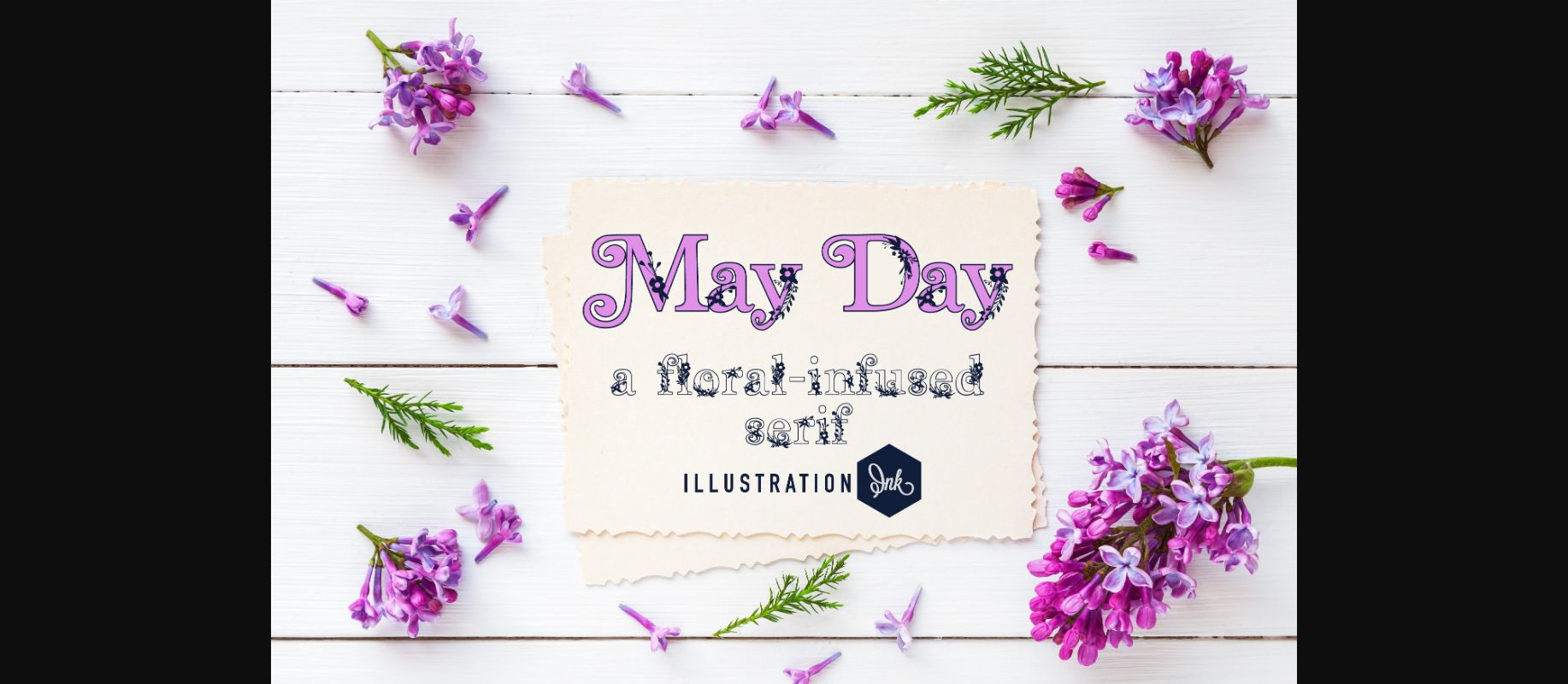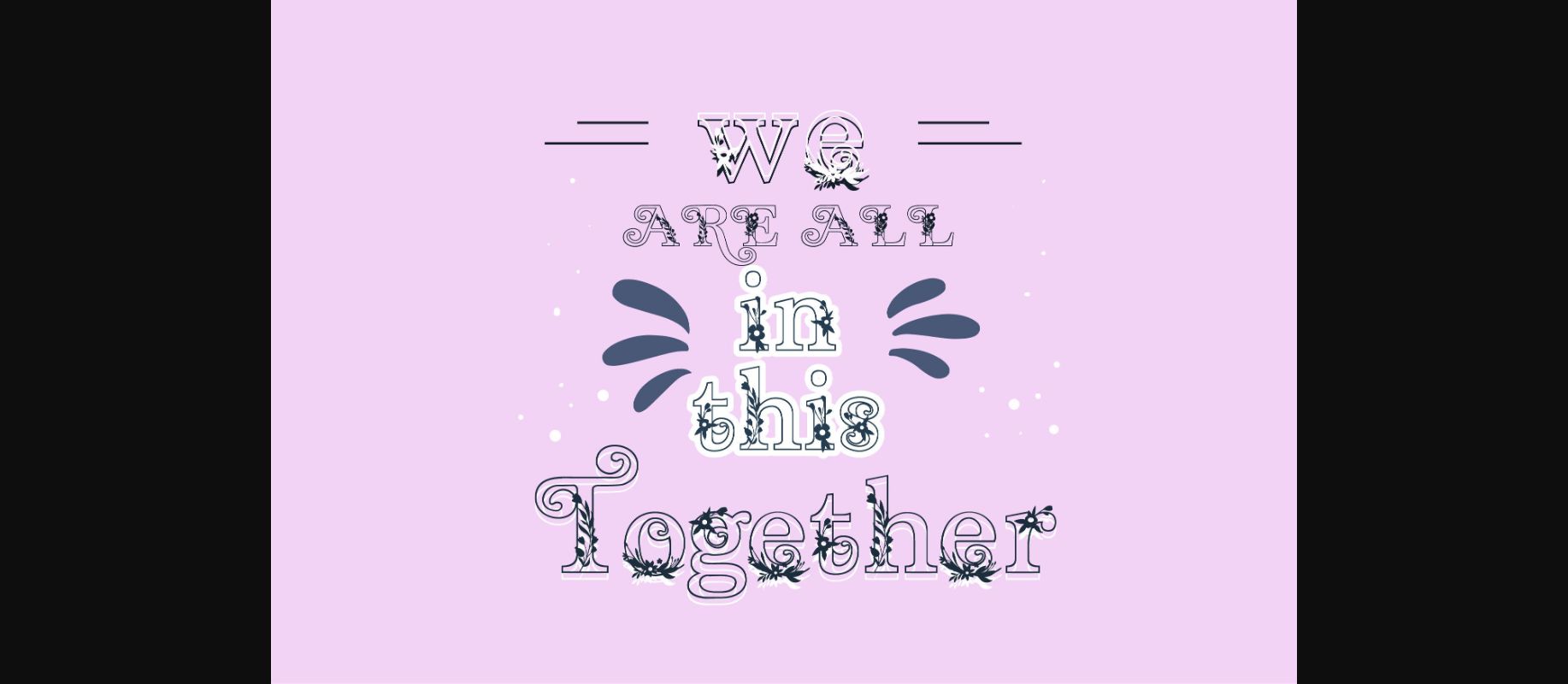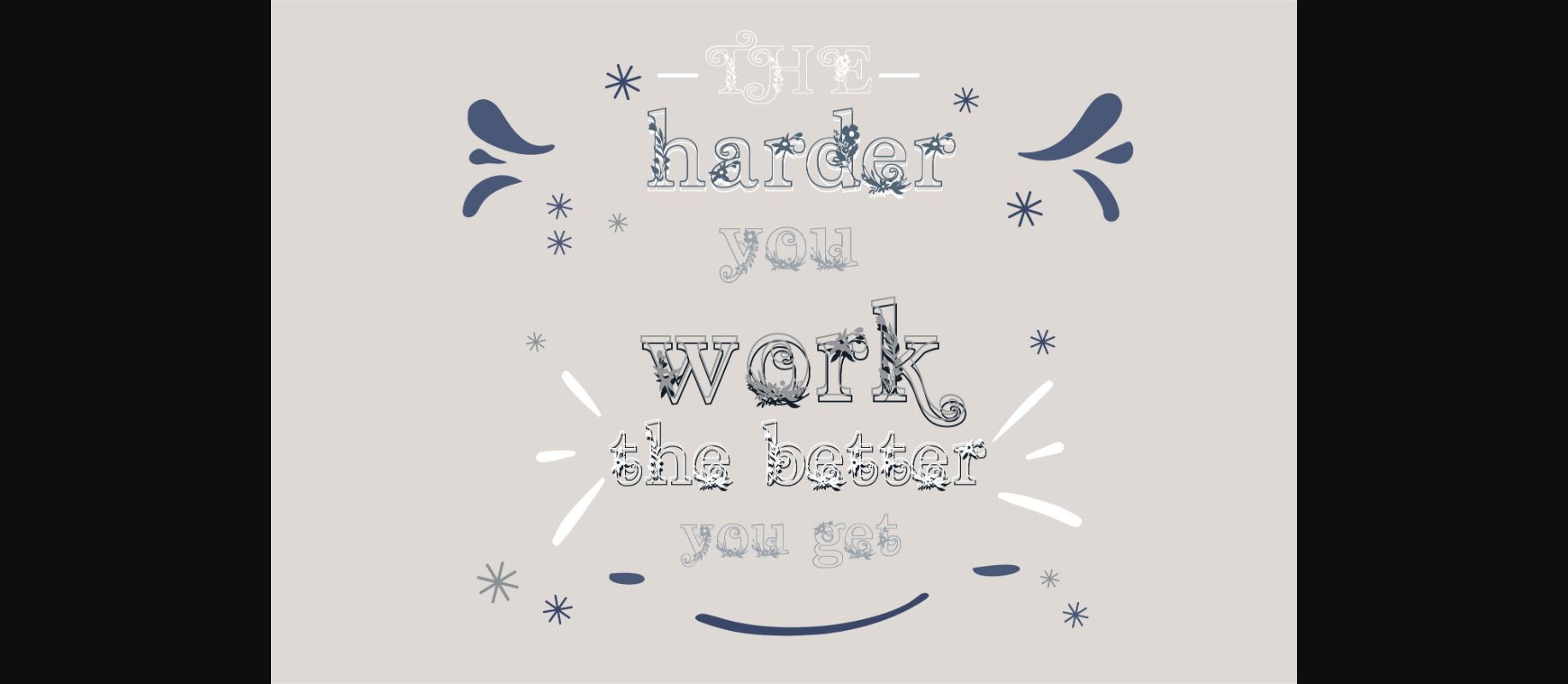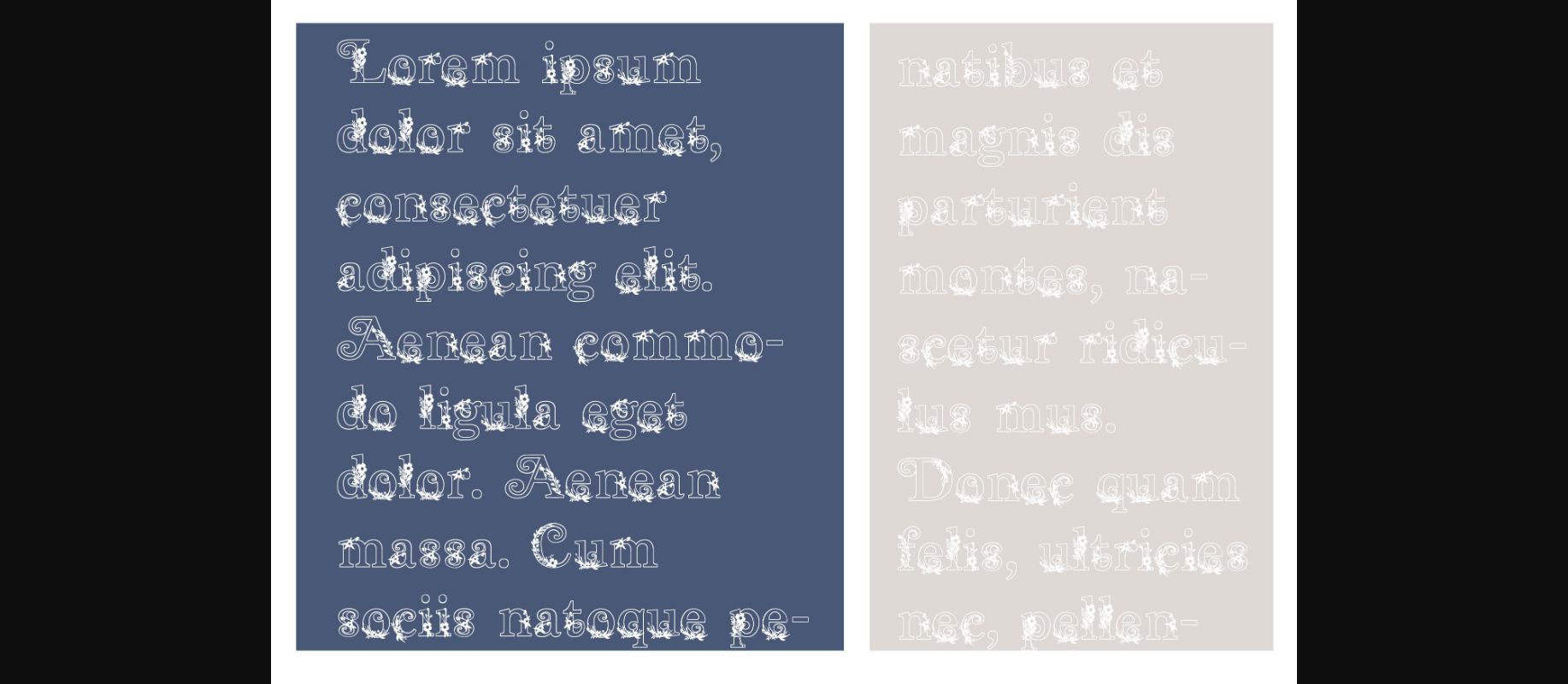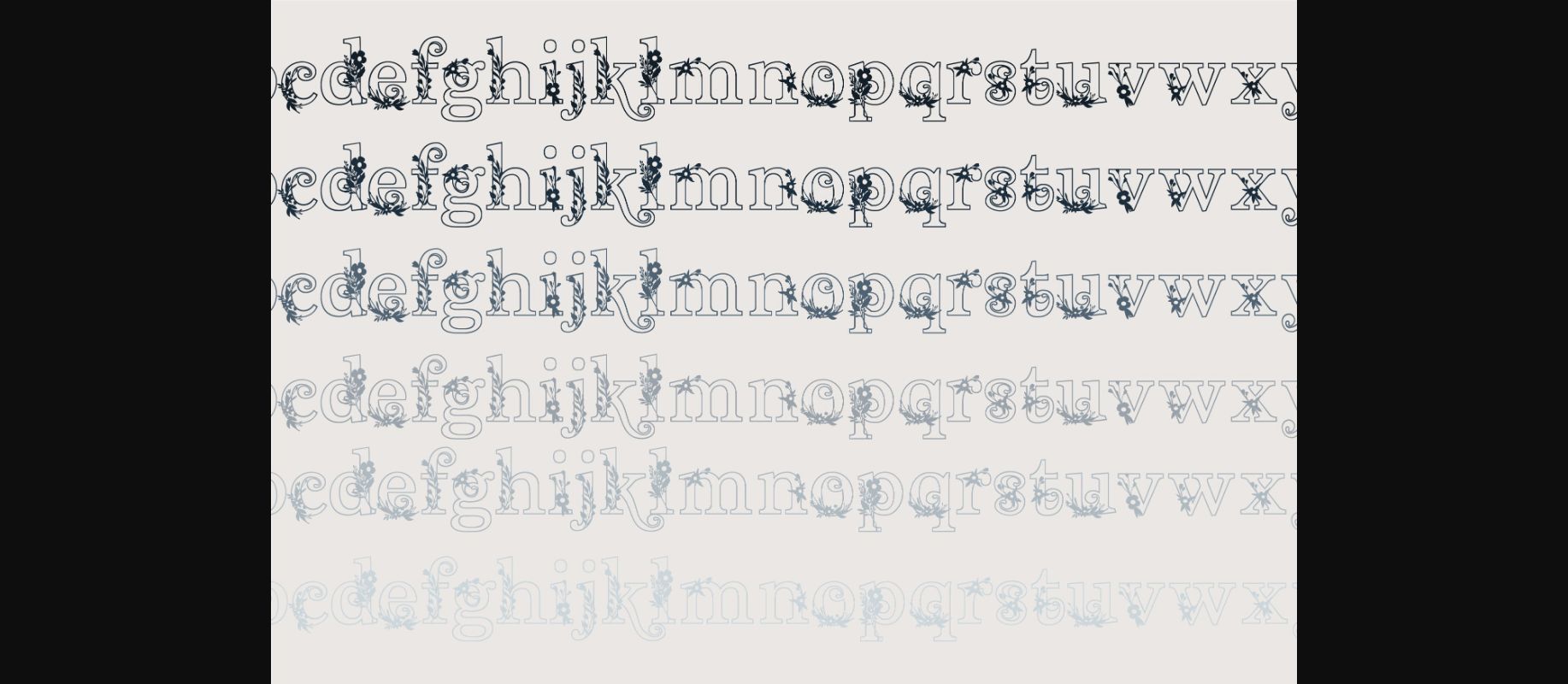
May Day Font
About May Day Font
May Day is a cute and playful decorative display font that sports swirls, curls, and floral sprays. Whether you’re using it for crafts, digital design, presentations, or making greeting cards, this font has the potential to become your favorite go-to font, no matter the occasion!